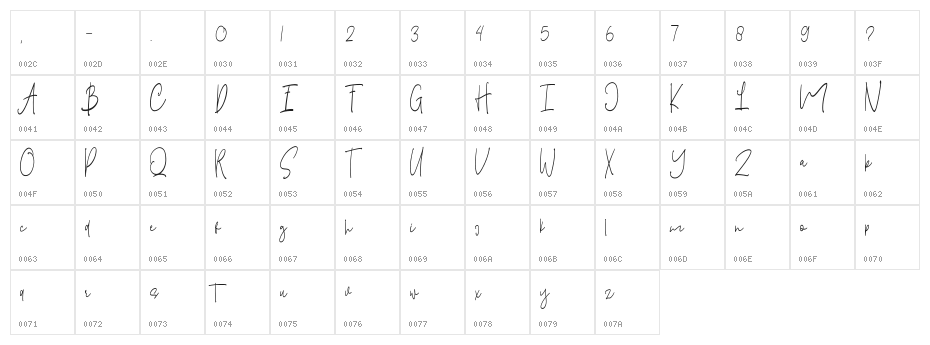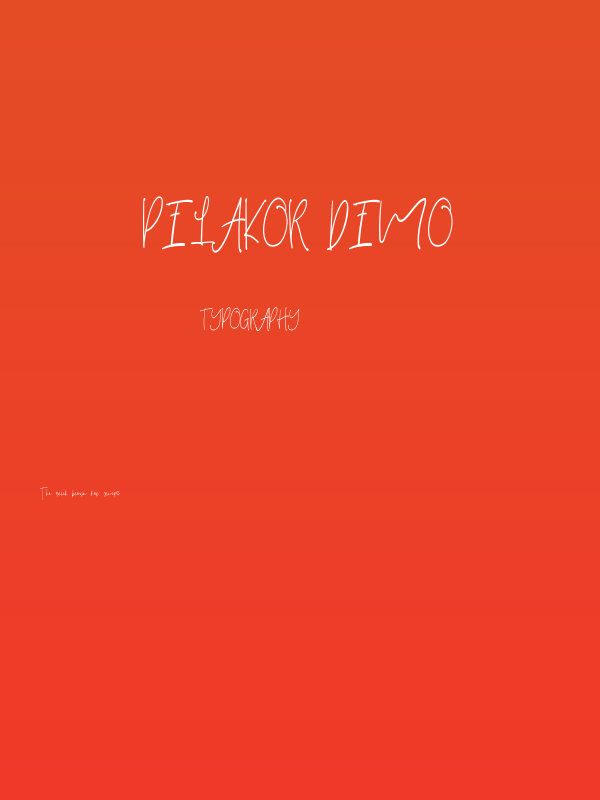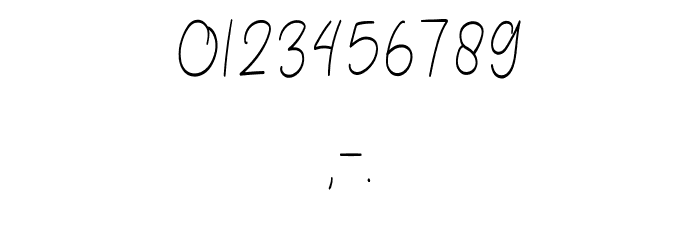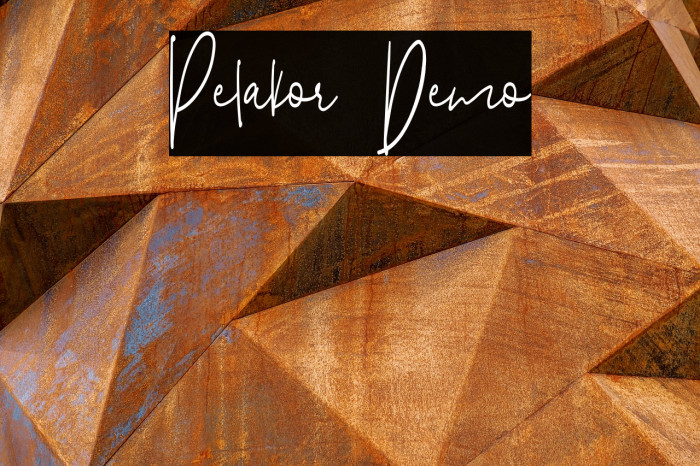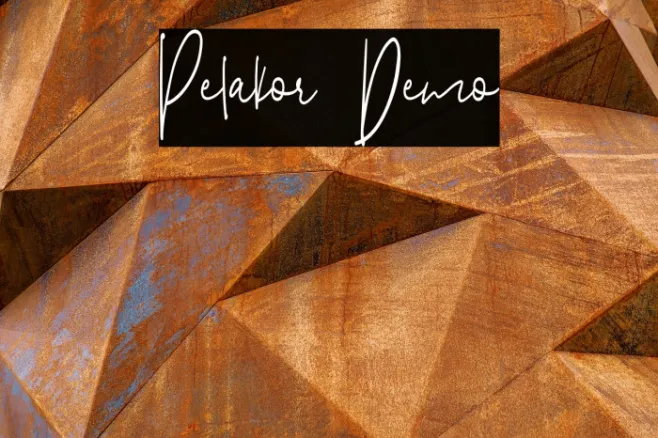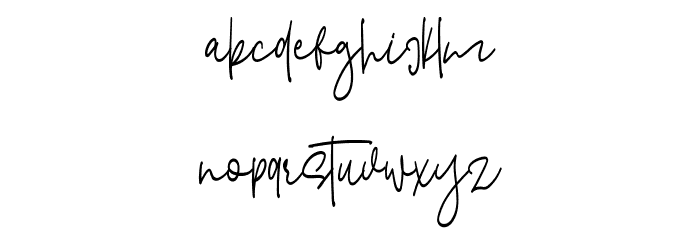
Pelakor Demo Font
Pelakor Demo Description
This font features a playful and whimsical handwritten style, characterized by its flowing and irregular strokes. The uppercase letters are tall and slightly narrow, with a mix of straight and curved lines that give a sense of movement and energy. The lowercase letters maintain the same lively style, with some letters connecting in a cursive manner. The numerals are consistent with the overall design, offering a casual and approachable feel. This font includes a limited set of special characters, enhancing its versatility for creative projects.
| Overall Style | Casual, Whimsical |
| Use Case | Headlines, Invitations, Personal Branding |
| Proposed Projects | Ideal for greeting cards, invitations, personal branding, and creative projects that require a casual and friendly touch. |